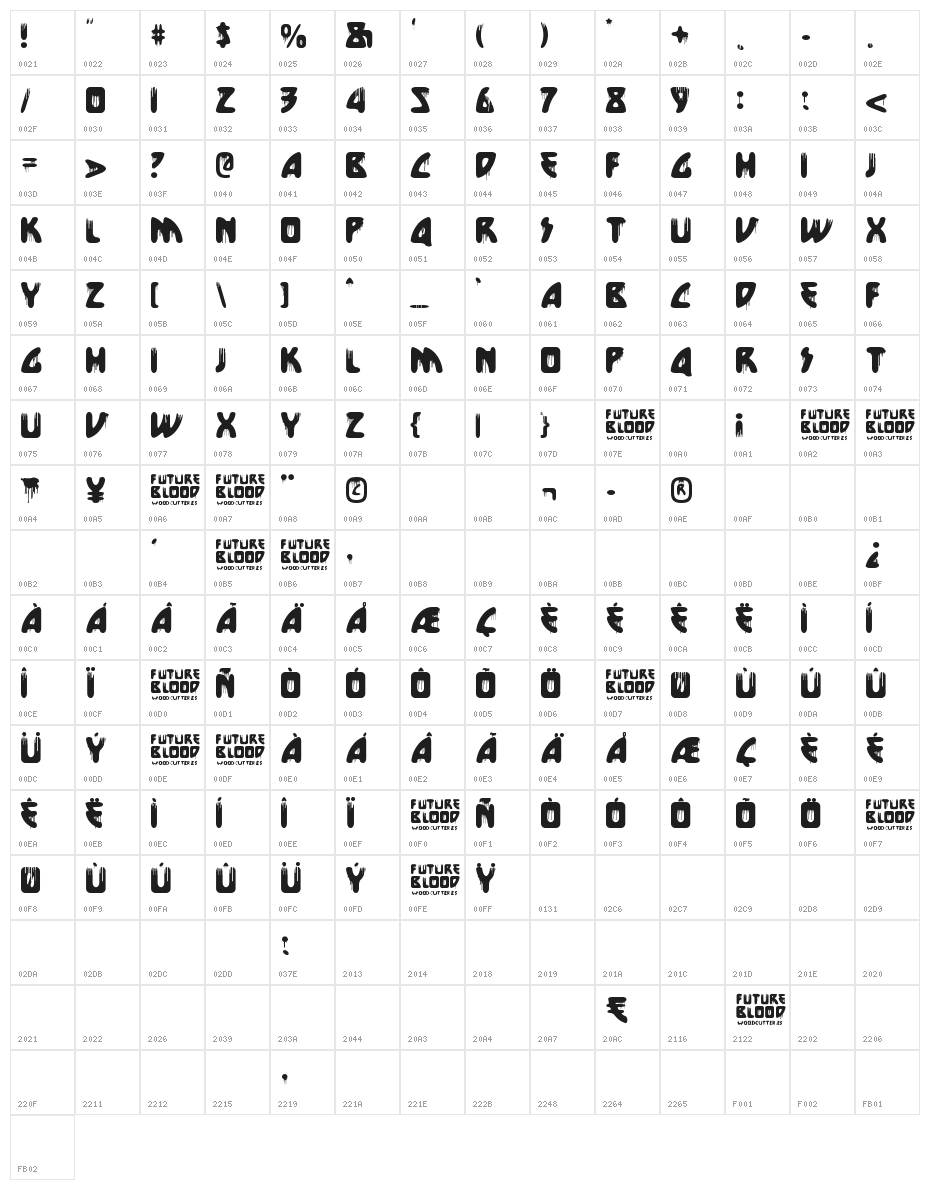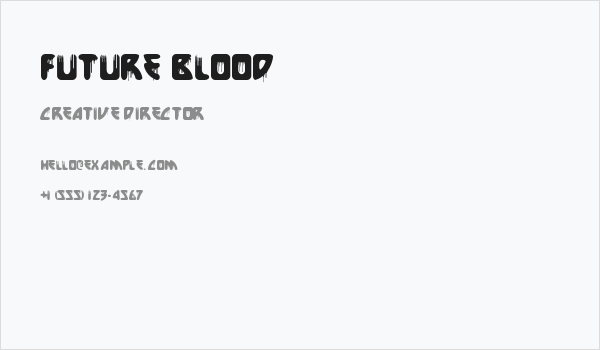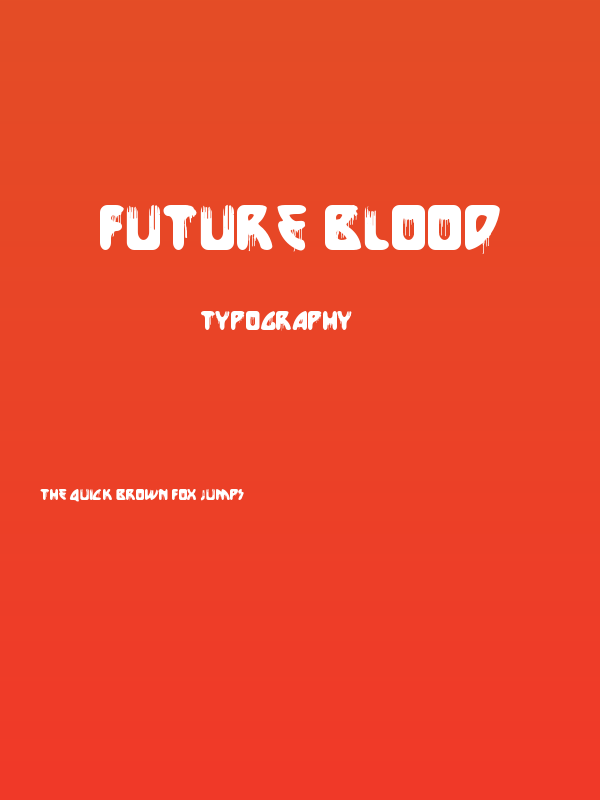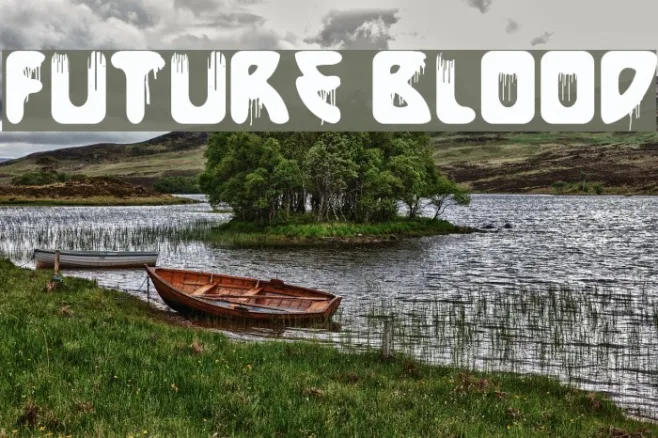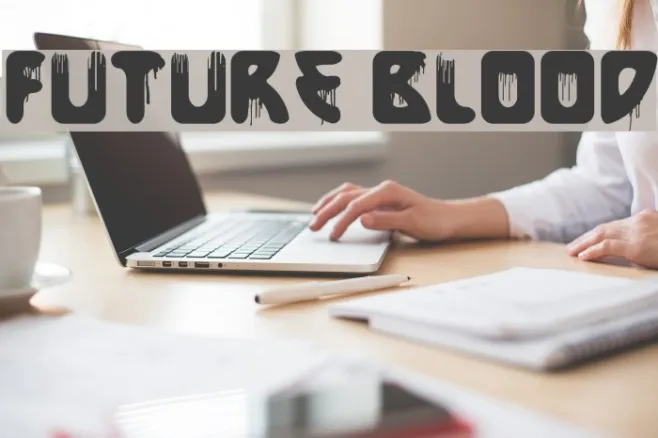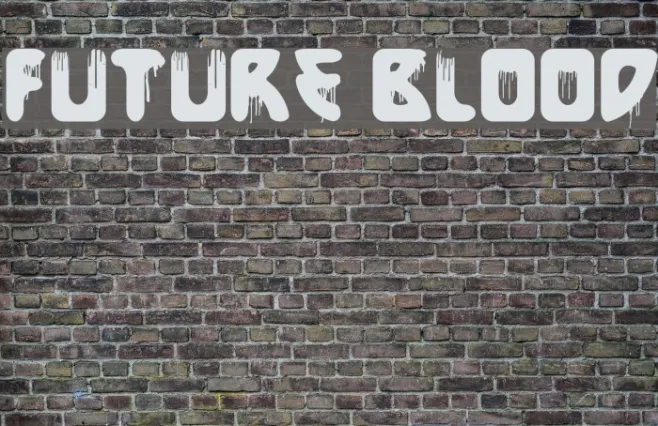
Future Blood Font
Future Blood Description
This font features a bold and dramatic style with a dripping effect that resembles blood or paint, creating a sense of horror or suspense. The characters are thick and rounded, with each letter having a unique, irregular pattern that adds to the eerie aesthetic. The uppercase and lowercase letters maintain a consistent style, while the numbers and special characters also follow the same dripping motif. This font is perfect for creating a chilling atmosphere in designs, making it ideal for Halloween-themed projects or horror movie posters.
| Proposed Projects | Ideal for Halloween invitations, horror movie posters, haunted house flyers, and spooky event branding. |